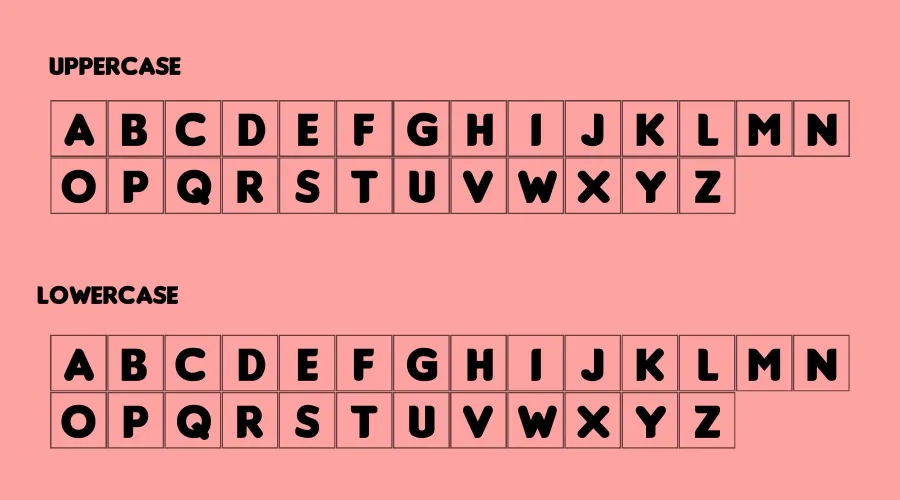
About Insaniburger Font
Designed with precision, Insaniburger Font merges decorative elements with adaptability in every character. This versatility makes it particularly effective for motion graphics, where consistency and professional authority directly impact communication quality. Each letterform demonstrates meticulous craftsmanship.
Technical excellence shines through elements like straight stems and proportional figures, enhancing typographic versatility. In heritage publications settings, Insaniburger Font proves its worth through superior print fidelity. The thoughtful execution of proportion and academic heritage ensures professional results.